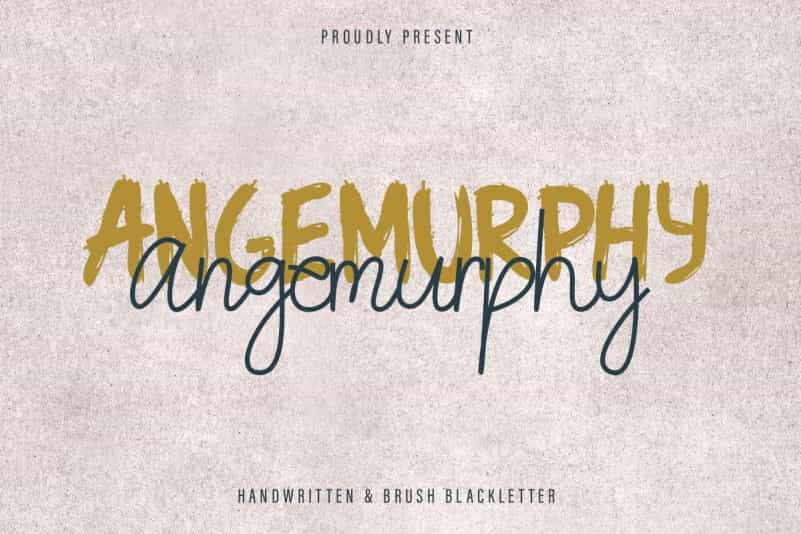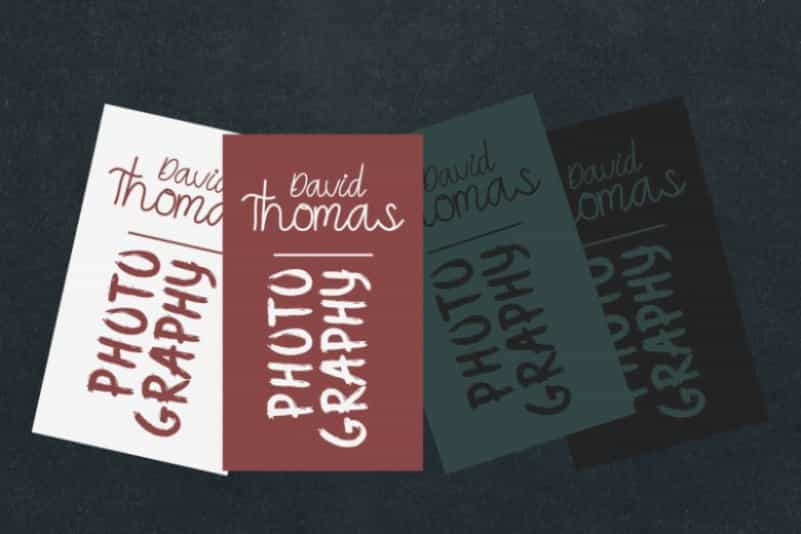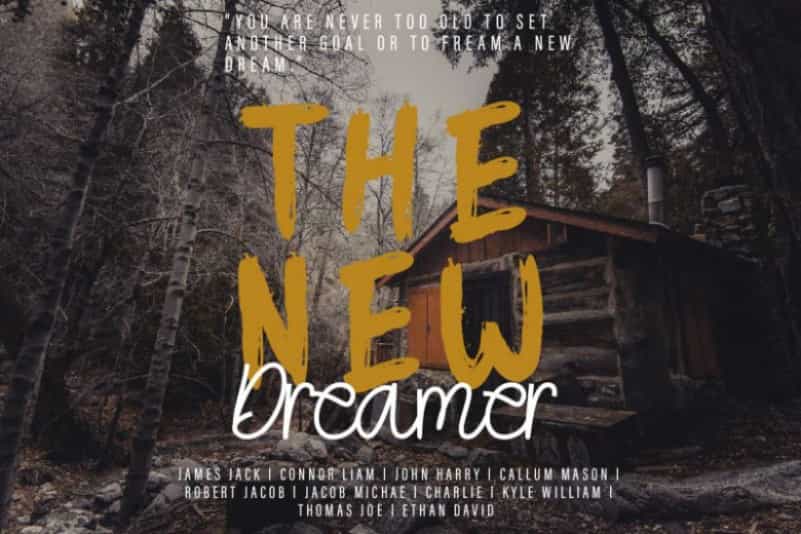
Angemurphy is an elegant duo typeface that has distinct style. It blends a handwritten script style with a brush-style. It elevates a wide variety of design projects to the top of the line whether it’s headings, branding wedding designs, invitations as well as signatures, logos and labels, and more!